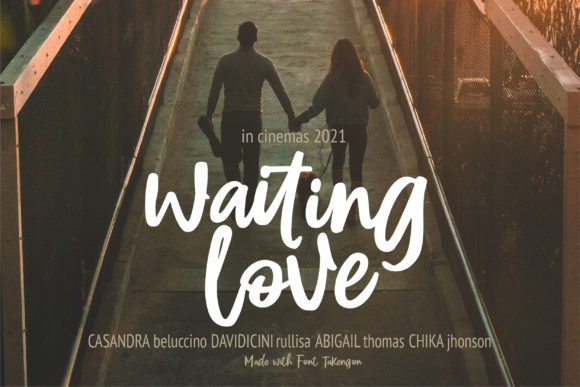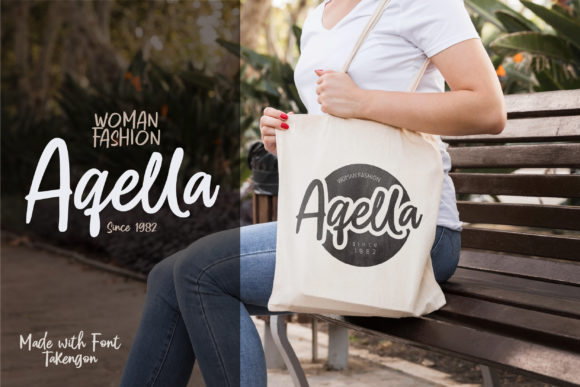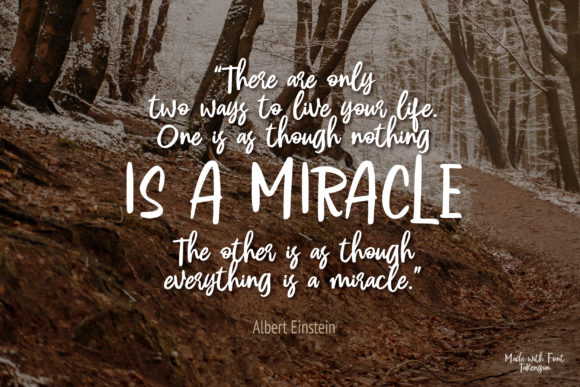
About Takegon Font
Introducing “Takegon,” a fun and urban-styled handwritten font that brings a vibrant and energetic touch to your designs. With its unique and playful style, Takegon is a versatile font that can elevate any creation and become a valuable asset in your font library.
Takegon’s dynamic and bold letterforms give your designs a contemporary and urban vibe. Whether you’re working on a project related to fashion, music, streetwear, or any other topic, Takegon adds a fresh and modern look that resonates with a youthful audience.
The font’s distinctive character shapes and lively strokes make each letter stand out. Takegon’s handwritten style gives your designs an authentic and personal touch, adding a sense of creativity and originality. It is perfect for posters, logos, social media graphics, album covers, and various other design applications.
With Takegon, you have the freedom to explore different design possibilities. Its versatility allows it to adapt to different design contexts effortlessly. Whether you want to create eye-catching headlines, playful branding materials, or energetic social media posts, Takegon can bring your ideas to life.
The font’s urban-inspired aesthetics make it an excellent choice for projects that aim to connect with a young and trendy audience. Its casual and laid-back appearance adds a touch of informality and approachability to your designs, making them more relatable and engaging.
By incorporating Takegon into your font library, you ensure that you have a go-to typeface for projects that require a fun and urban look. Its potential to enhance any creation makes it a valuable resource for designers, artists, and creatives of all kinds.